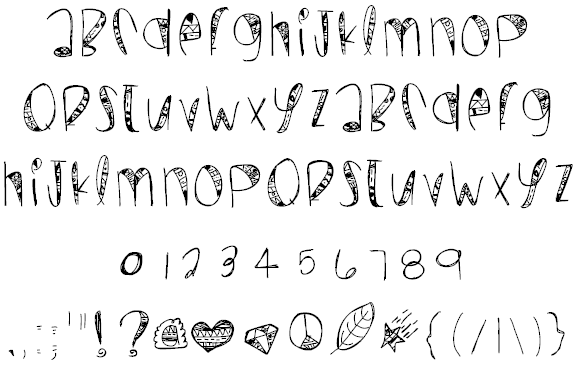
Free WildCrazy Font
Take a look at this beautiful free wildcrazy font. Font Space has created this amazing and beautiful free font. You can create a professional designs with this fancy font.